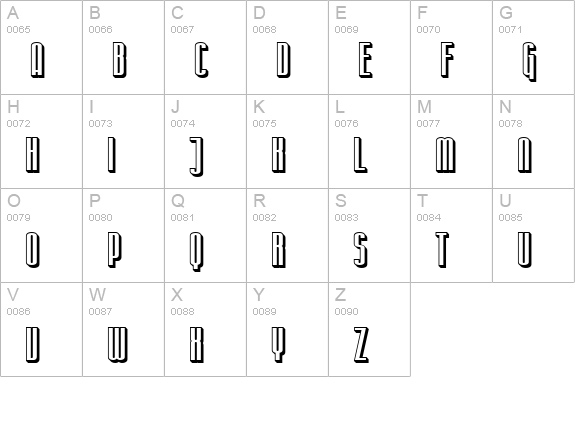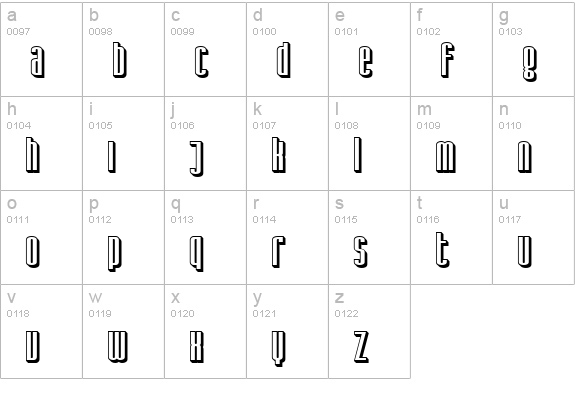
SF Iron Gothic Shaded Font Details
SF Iron Gothic Shaded is a captivating and visually striking font that combines the timeless elegance of gothic lettering with a modern twist. Its bold and powerful design is perfect for adding a touch of mystery and sophistication to any project. This unique font features sharp, angular strokes that create a sense of strength and durability. The shaded effect adds depth and dimension, making each letter stand out with an air of elegance and sophistication. Whether you're designing a logo, creating a poster, or crafting a headline, SF Iron Gothic Shaded will instantly grab attention and leave a lasting impression. What makes SF Iron Gothic Shaded even more appealing is that it is freely available to download at FontsMarket.com. This means that you can easily access and use this remarkable font in your personal and commercial projects without any constraints. Whether you're a professional graphic designer or a hobbyist, SF Iron Gothic Shaded is a valuable addition to your font library. With its versatility and timeless appeal, SF Iron Gothic Shaded is suitable for a wide range of applications. Its bold and commanding presence makes it ideal for titles, headlines, and logos, while its legibility ensures that your message is clearly communicated. From websites to advertisements, packaging to branding, this font has the power to elevate your design and captivate your audience. Embrace the power and elegance of SF Iron Gothic Shaded, the go-to font for those seeking a unique and visually striking typeface. Download it for free at FontsMarket.com and unleash your creativity with this exceptional font.